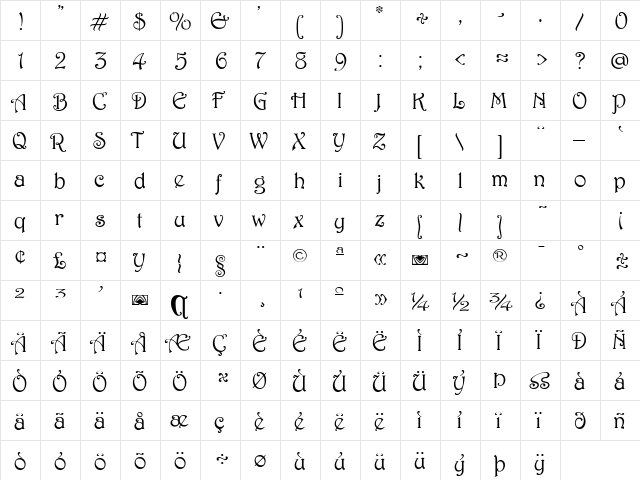
Hermosa Beatty Regular
Design Context for Hermosa Beatty Typeface
Hermosa Beatty is a composed and adaptable typeface that performs quietly and consistently across a wide range of design contexts.